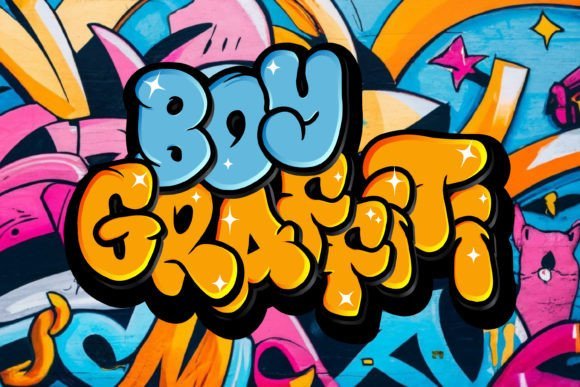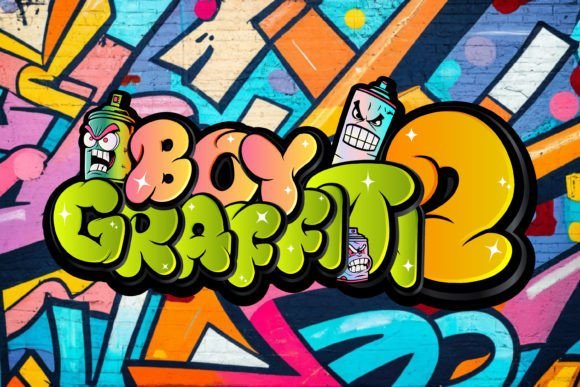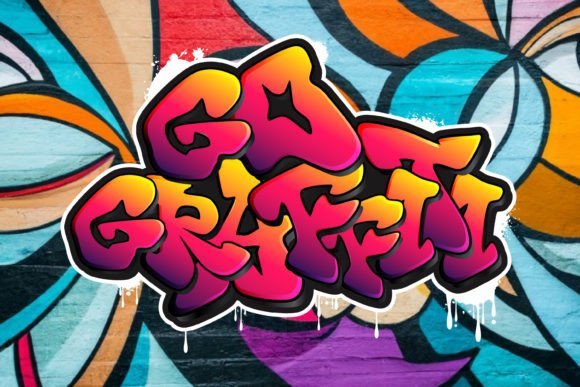
45 Bold Graffiti Lettering Styles for Raw Handstyle, Murals & Urban Apparel in 2026
Graffiti lettering is a visual code that communicates attitude, tempo, and personality. Whether you study tags, wildstyle, or handstyle scripts, these letterforms shape the look of a piece instantly.
This post breaks down 45 distinct styles-from tight single-line tags and bold throw-ups to loose brush scripts and stencil work-so you can spot influences, mix approaches, and adapt them to walls, clothing, or digital layouts.
1. Boy Graffiti Font
Boy Graffiti Font
The Boy Graffiti Font delivers raw, spray-painted letterforms with uneven edges and lively drips that convincingly mimic hand-made tags. Its heavy caps and jagged terminals create a confrontational display voice that reads clearly at large sizes. OpenType alternates and contextual ligatures introduce subtle variation so repeated words look hand-rendered rather than mechanical.
Use this face for concert posters, urban apparel, and signage where a distinctly streetborn identity is required. Pair it with a neutral sans for body copy and add halftone or paint-splatter layers to reinforce texture. Files include OTF, TTF, and webfont kits, with tightened kerning for confident horizontal runs.
My Recommendation: I reach for Boy Graffiti when I need a headline that feels like authentic spray paint-brash and tactile. It injects immediate street attitude without relying on photographic backgrounds. Perfect for band posters, skate labels, and any project that benefits from a raw, handmade look.
2. Boy Graffiti 2 Font
Boy Graffiti 2 Font
Boy Graffiti 2 takes the tag aesthetic into a more playful register with rounded, bubble forms and exaggerated counters that still retain a gritty finish. The family includes layered outlines and a shadow companion so you can build dimensional wordmarks without extra assets. An expanded glyph set and extended Latin coverage make it usable across different languages and playful brand systems.
This version adapts well to stickers, event flyers, and youth-focused packaging where bold personality matters at small scales. Color overlays and adjustable stroke widths let you mimic marker fills or soft aerosol blends. Variable-weight files and web-ready formats speed up mockups and A/B tests on live pages.
My Recommendation: I’d choose Boy Graffiti 2 for campaigns that need cheeky, street-smart typography with instant charm. The layered styles cut prototyping time for merch and badges. It works especially well for festivals, sticker runs, and lively editorial spreads targeted at younger audiences.
3. Go Graffiti Font
Go Graffiti Font
Go Graffiti leans toward a stenciled graffiti aesthetic, featuring crisp cutouts and high-contrast fills that reproduce well across print and digital surfaces. Distressed masks and scattered glyph alternates simulate weathered walls and real-world paint erosion, while multiple baseline offsets create a convincing improvised tagging rhythm. Spacing is engineered for tight headlines and stacked lockups that read at a glance.
The family ships with variable axis files and a separate stencil set for quick application in packaging, posters, and merch. Pair it with serif captions to create an unexpected editorial contrast, or use it alone for cinematic poster titles that need raw urban texture. Bundled SVG masks, swatches, and licensing notes make the face straightforward to deploy in both web and print workflows.
My Recommendation: When I want gritty precision rather than chaotic scrawl, Go Graffiti is my pick because it balances control with street texture. The stencil options are ideal for reproducible logo work and product runs. I recommend it for film posters, label design, and editorial projects that need a rough, tactile headline voice.
4. Bazoka Font
Bazoka Font
Bazoka reads like a bubbly marker tag left on a subway car: broad, rounded counters and inflated stroke endings give every word a cheerful pop. The letters feel hand-sketched rather than mechanically perfect, which injects personality without sacrificing the boldness you want for posters and event headers.
At display sizes Bazoka holds color fills and layered outlines very well, and its open shapes make custom effects-halos, drips, or textured overlays-easy to apply. It struggles at tiny sizes, so reserve it for headlines, badges, stickers, and packaging where the form can breathe.
My Recommendation: I reach for Bazoka when a project needs outsized personality and a playful urban tone-festival posters, kids’ skate events, and product labels all benefit from its chunky forms. Its hand-sketched feel reads friendly and informal, so it’s great when a brand wants to seem approachable rather than corporate. Pair it with a neutral sans for body text to keep contrast clear.
These 45 styles offer a wide map of approaches to street lettering: lean, chunky, flowing, distorted, and experimental. Use them as reference points to refine your own hand, select type for projects, or brief a muralist with precise visual cues.
Practice clean execution, respect legal limits for public surfaces, and study how color, scale, and placement change a letter’s energy. Keep sketching, compare tags and pieces, and let these forms inform fresh work throughout 2026.